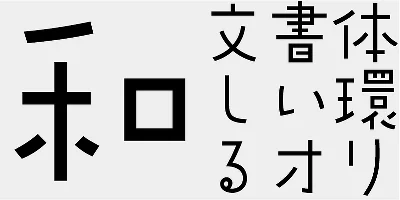
AB Walk Font
AB Walk Font is a sleek and modern sans-serif typeface with a clean, minimalistic design. Its geometric letterforms and subtle curves make it perfect for a variety of projects including branding, website design, editorial layouts, packaging, and more. This font offers a sophisticated, professional look with a contemporary edge.